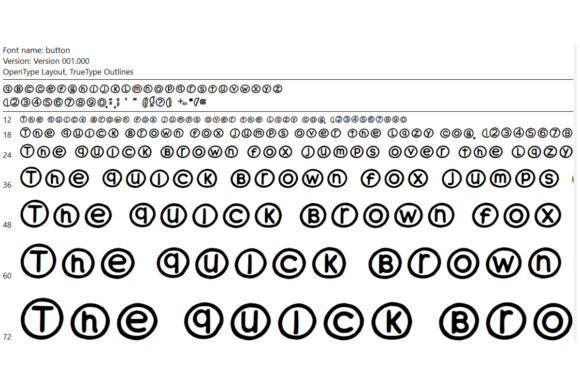
Introducing Button Font: The Ultimate Design Game-Changer
Are you tired of using the same old fonts in your design projects? Look no further than Button Font, a delightful circle font that’s about to take your work to the next level. With its playful yet sophisticated aesthetic, Button Font is the perfect addition to any design project, from logos and branding materials to web design layouts.
The Power of Circular Styling
Button Font’s circular styling is more than just a cute design element – it’s a game-changer. The rounded shape of each letter adds a touch of whimsy and charm, making your work truly stand out in any application. Whether you’re designing a logo, brochure, or website, Button Font’s unique aesthetic is sure to capture the attention of your audience.
Unleash Your Creativity
Button Font is more than just a font – it’s a design tool that amplifies the creativity factor in any project. With its bold, playful letters, you can add a dash of personality to even the most mundane design elements. Imagine being able to turn a simple button or icon into a statement piece that draws people in. With Button Font, the possibilities are endless.
Button Font is a dream come true for designers and crafters who are looking to add a touch of magic to their work. Whether you’re a seasoned pro or just starting out, this font is easy to use and versatile enough to work in a variety of design applications. From handmade crafts to digital designs, Button Font is the perfect choice for anyone looking to add a little extra charm to their work.
What Makes Button Font So Special?
So what sets Button Font apart from other fonts on the market? Here are just a few reasons why designers and crafters are falling in love with this delightful circle font:
- Playful yet sophisticated: Button Font strikes the perfect balance between playfulness and sophistication, making it suitable for a wide range of design applications.
- Unique aesthetic: The circular styling of Button Font adds a touch of whimsy and charm to any design, making it truly stand out.
- Versatile: Button Font can be used in a variety of design applications, from logos and branding materials to web design layouts and handmade crafts.
How to Use Button Font in Your Design Project
Using Button Font in your design project is easy. Here are a few tips to get you started:
- Start with a clear design brief: Before you begin, take some time to think about the overall aesthetic you want to achieve with your design. What is the tone of your brand? Who is your target audience?
- Choose the right font size: Button Font works best in larger font sizes, so experiment with different sizes to find the one that works best for your design.
- Experiment with different colors: Button Font looks great in a variety of colors, so don’t be afraid to experiment and find the one that works best for your design.
- Pair with other fonts: Button Font pairs well with other fonts, so consider using it in combination with a sans-serif font to add contrast and interest to your design.
In conclusion, Button Font is a game-changer for designers and crafters who are looking to add a touch of magic to their work. With its playful yet sophisticated aesthetic, unique circular styling, and versatility, Button Font is the perfect addition to any design project. Whether you’re creating a logo, branding materials, or a web design layout, Button Font is sure to amplify the creativity factor and make your work truly stand out. So why wait? Download Button Font today and start transforming your design projects with its enchanting style.